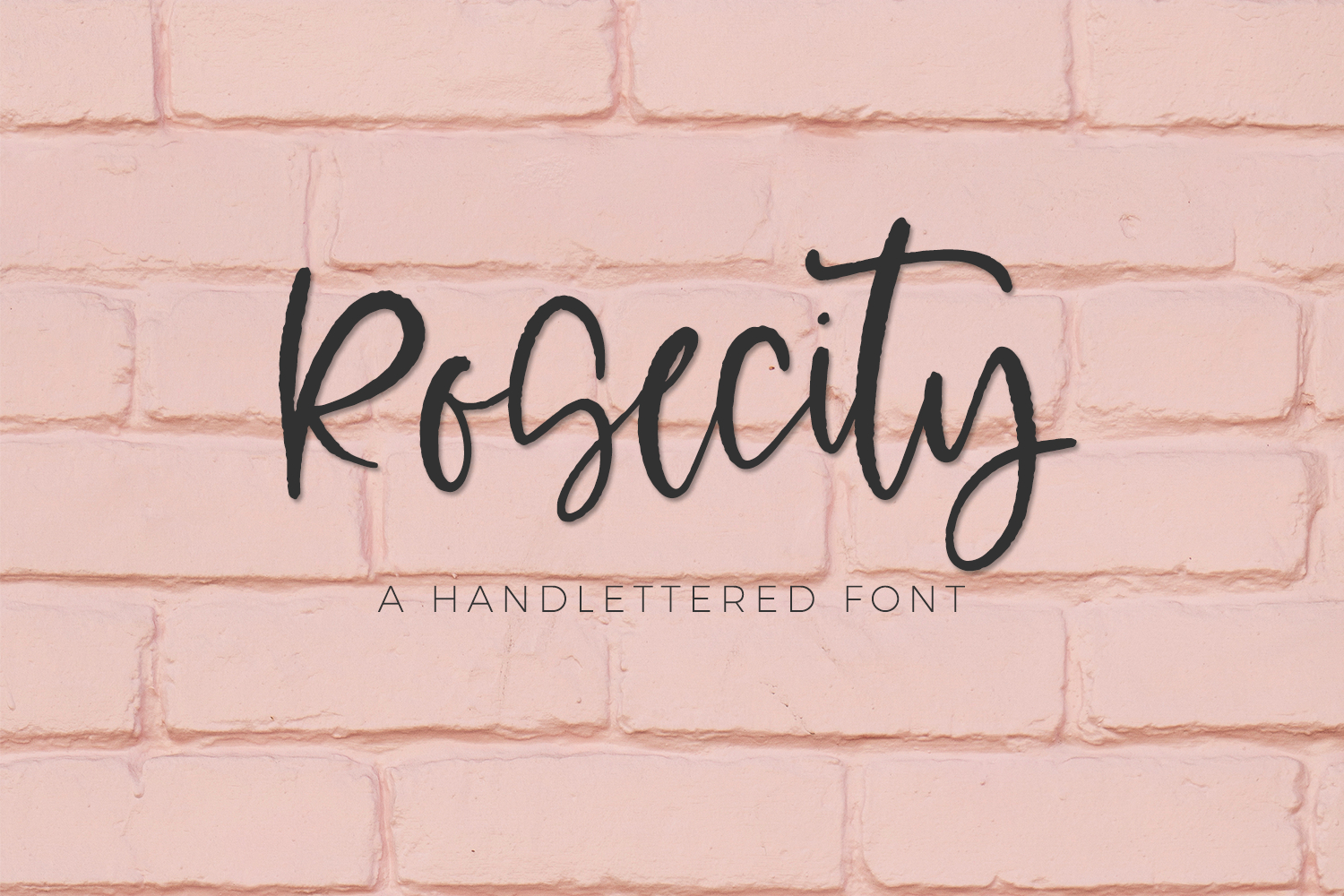
Rosecity is a textured script font, perfect for your next project. Rosecity is slightly feminine and slightly messy - just the right amount of attitude, whether it’s for a logo design or creating social media graphics.
Rosecity Script is best for:
- website design + website accents - think travel blogs, fashion blogs, & more
- social media graphics
- 18 ligatures - al, bb, dd, ee, el, ff, gg, il, ll, mm, nn, ol, oo, pp, rr, ss, tt, ul